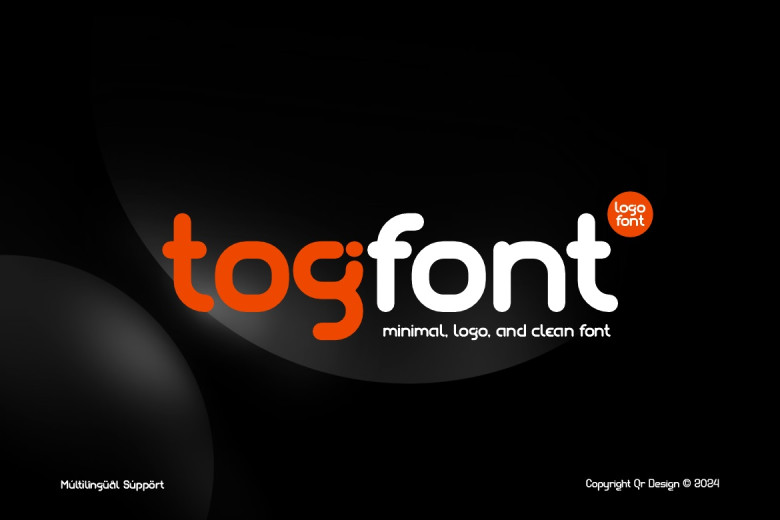
Togfont Font
Togfont is considered a sans serif typeface. This font will be of great help to your fonts’gallery as it has the opportunity to enhance any work done. This font is ideal for creating simple, beautiful logos, branding, appealing to travels, designs for layouts of magazines, beauty products, product packaging, for writing quotes and just placing nicely on the any picture as the nice text layer.
It only has the features to take all uppercase and lowercase letters and only a handful of special characters.
Togfont Sans Serif Font